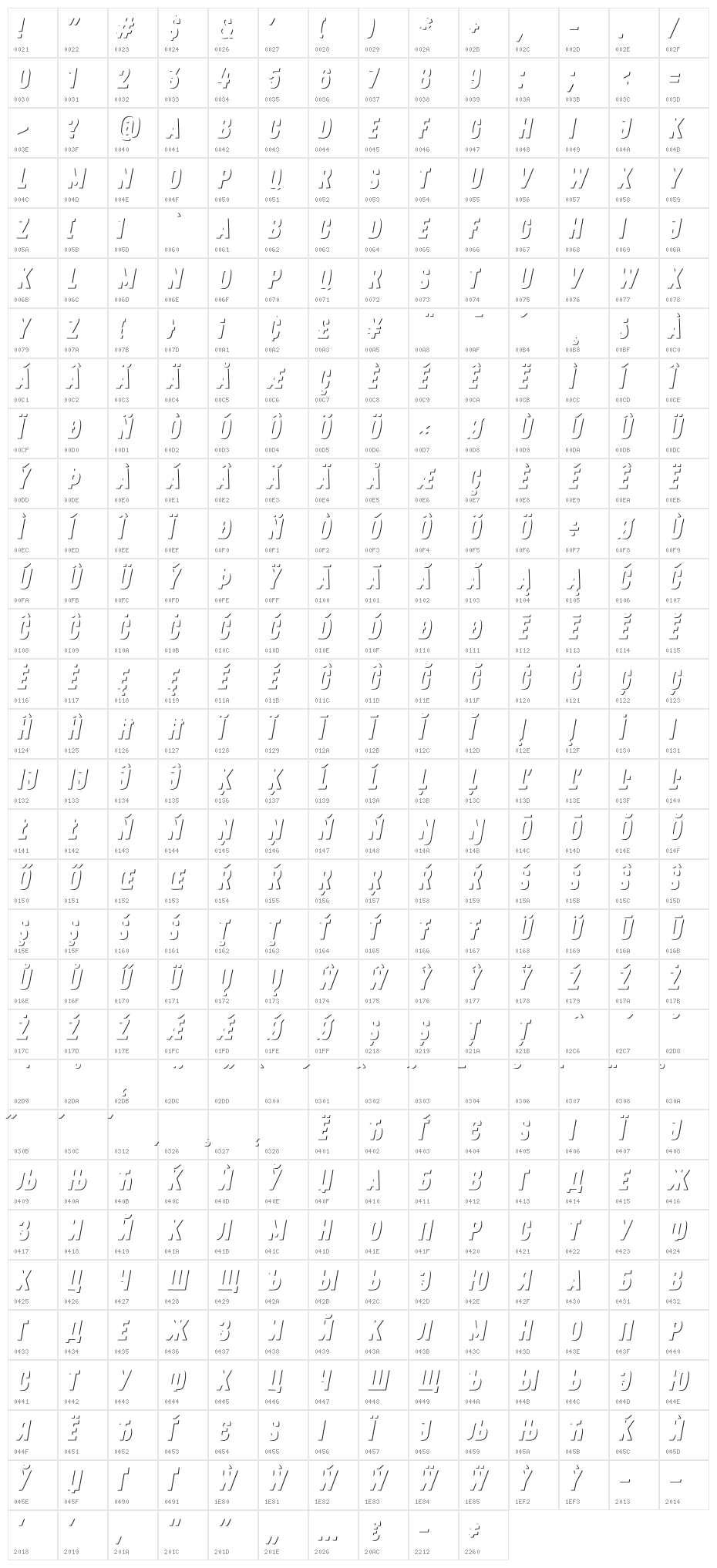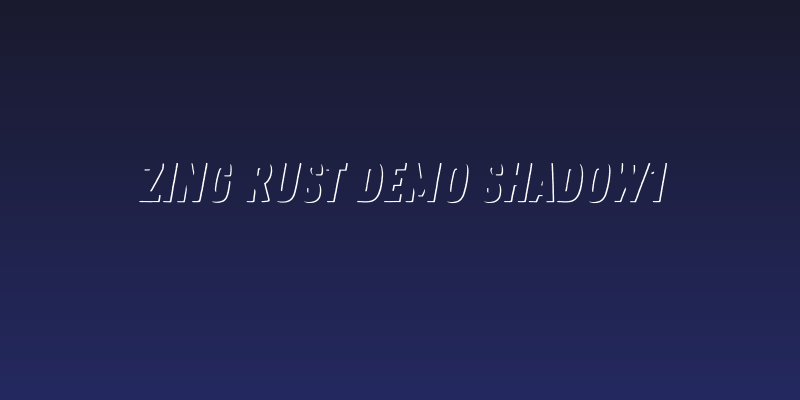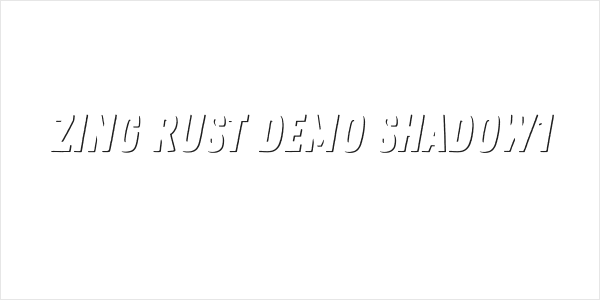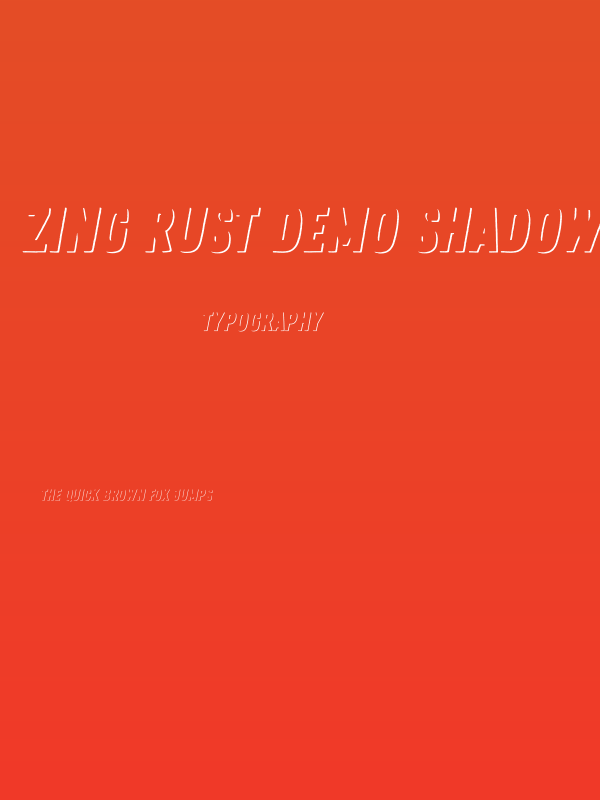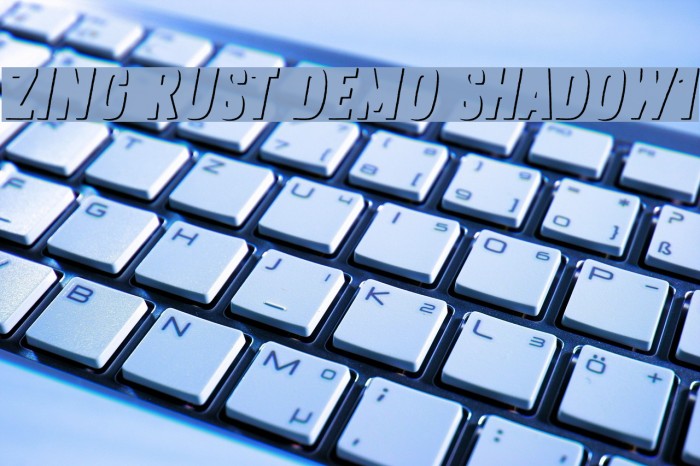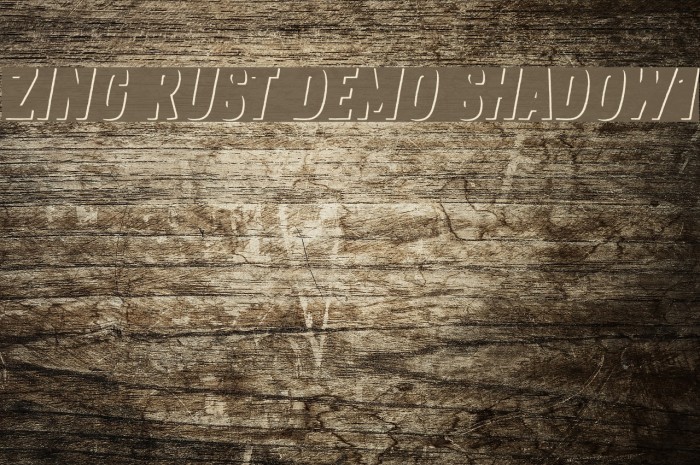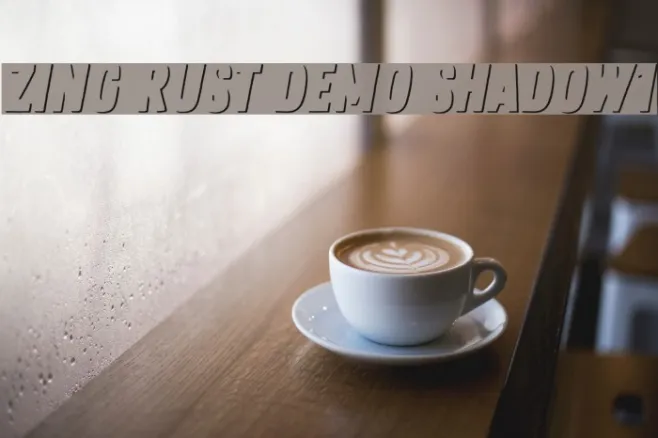
Zing Rust Demo Shadow1 Font
Zing Rust Demo Shadow1 Description
This font features a bold, dynamic style with a distinct shadow effect that gives it a three-dimensional appearance. The characters are uppercase and numerals, with a consistent slant that adds a sense of motion and energy. The shadow is positioned to the right and slightly below each character, enhancing the depth and making the text stand out. The strokes are thick and uniform, contributing to a strong visual impact. This font is ideal for creating eye-catching headlines or titles that demand attention.
| Proposed Projects | Perfect for posters, logos, branding materials, and any design that requires a strong visual impact. |